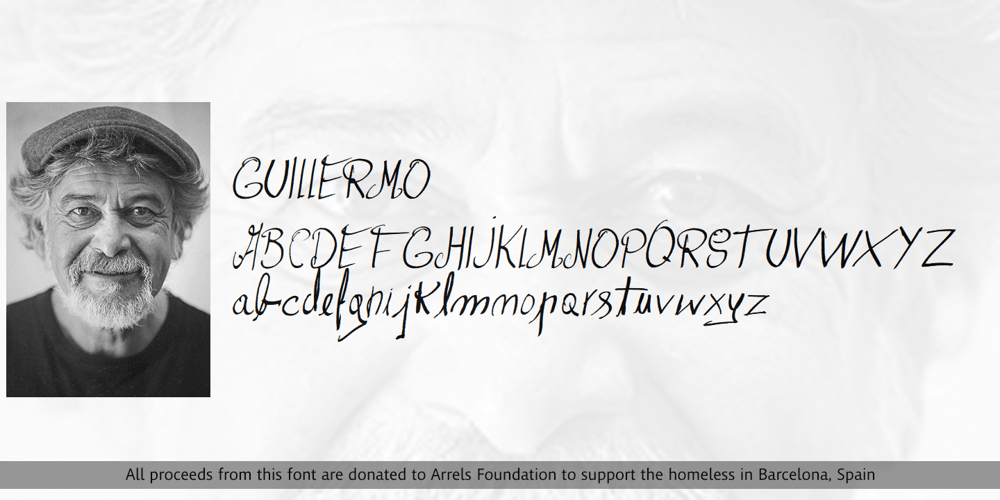
Guillermo Font Family was designed by published by Homelessfonts. Guillermo contains 1 styles and family package options. Homelessfonts is an initiative by the Arrels foundation to support, raise awareness and bring some dignity to the life of homeless people in Barcelona Spain. Each of the fonts was carefully digitized from the handwriting of different homeless people who agreed to participate in this initiative. Please Note: these fonts include only the latin alphabet; no accented characters, no numbers or punctuation. MyFonts is pleased to donate all revenue from the sales of Homelessfonts to the Arrels foundation in support of their mission to provide the homeless people in Barcelona with a path to independence with accommodations, food, social and health care. Guillermo was born in Argentina. And after crossing four continents and travelling in more than twenty countries, he still has his accent. His luck ran out on the streets of Barcelona. But despite his circumstances, he hasn’t lost a bit of his wit or articulacy. “The worst thing about the street is something that touches your heart, your brain. Not being able to have sex, not having any privacy until it leaves you empty.” On the street he follows his passion for art and writing as best he can, using old cardboard when he can’t find paper and listening to the music that comes to him. His way of thinking and expressing himself leaves people wide-eyed and open-mouthed, but even so he admits he’s a solitary man. “Solitude is an individual word. A solitary type like me can’t bring the word solitude to the whole world.”